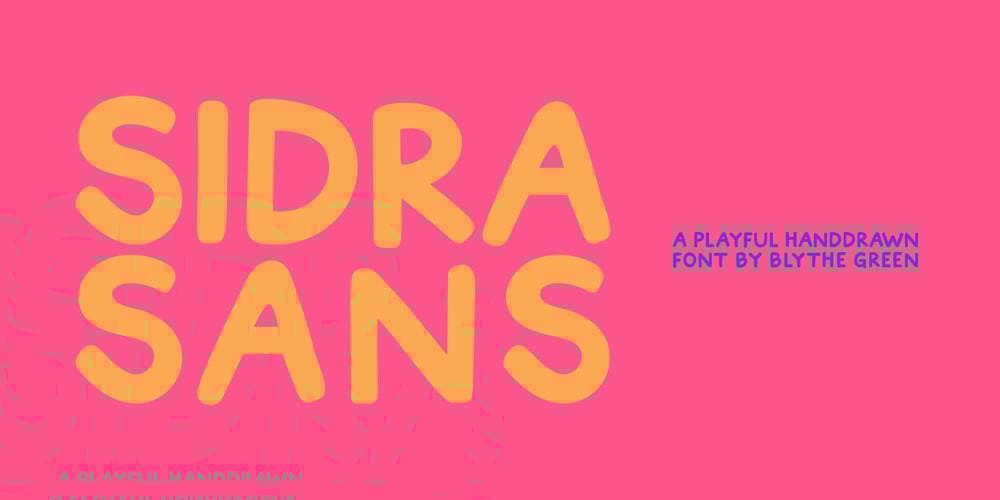
Sidra Sans
Sidra Sans font
Sidra Sans Font Family was designed by Blythe Green and published by Blythe Green. Sidra Sans contains 1 styles and family package options. Sidra Sans is an upper-case font with an authentic, handwritten feel. It’s perfect for: logos, playful branding, greeting cards, shirts, quotes, textiles, posters, magazines, social media, planners, prints, and more.FEATURES: Consistent stroke widths for linear designs Multilingual characters for the global designer